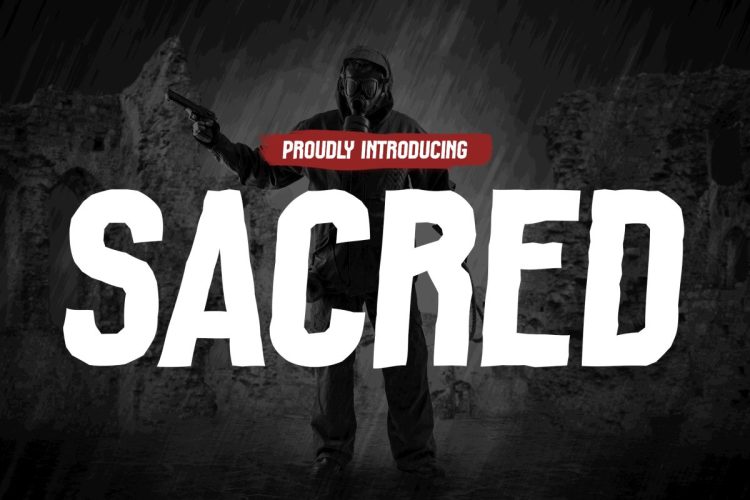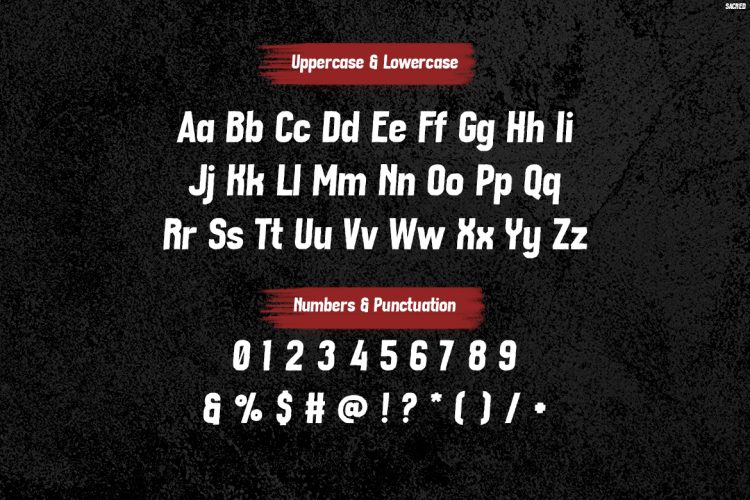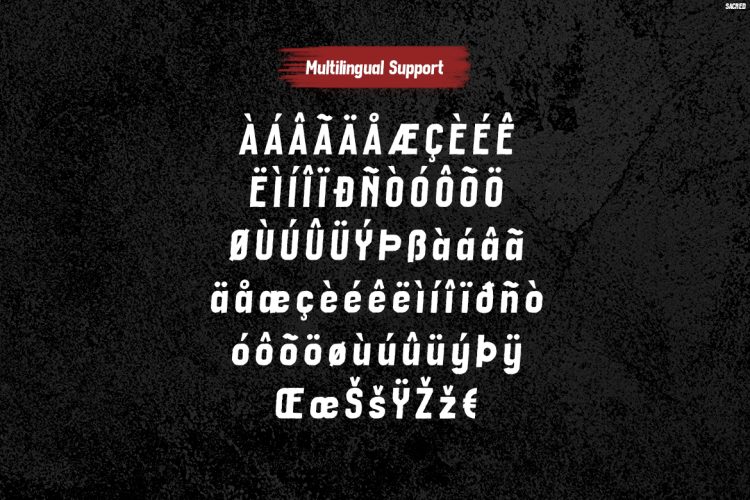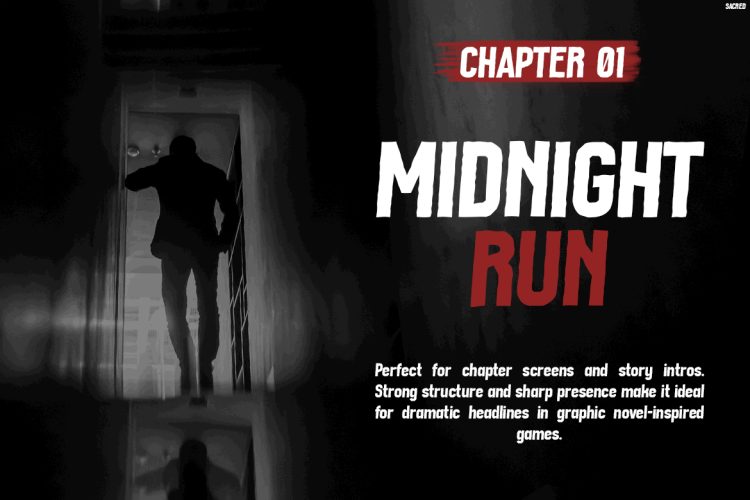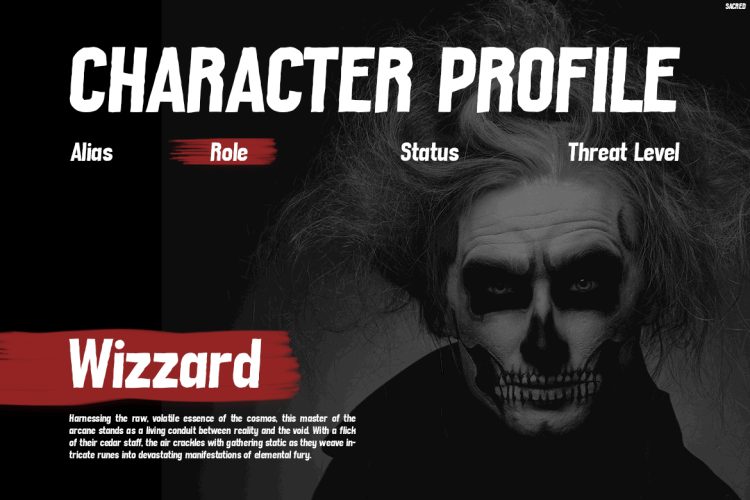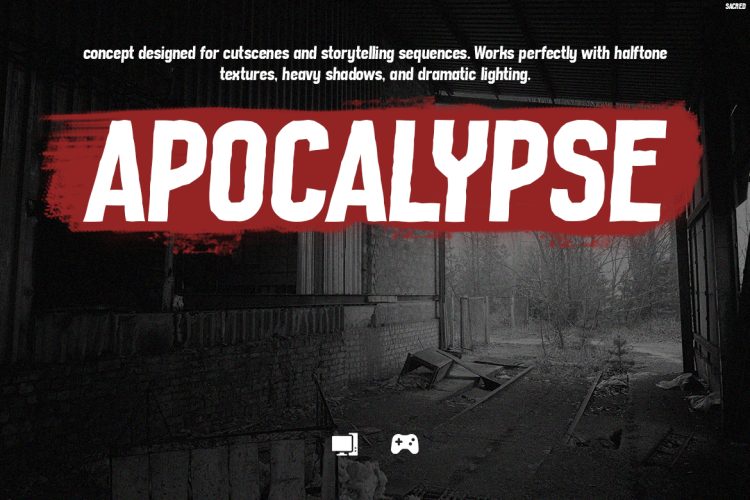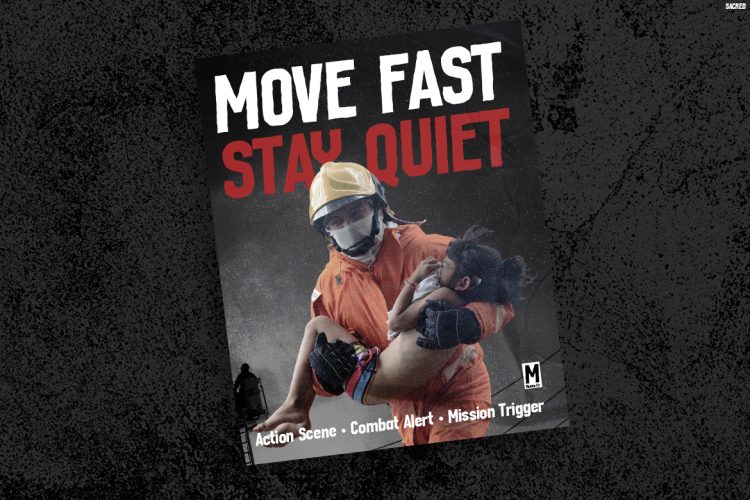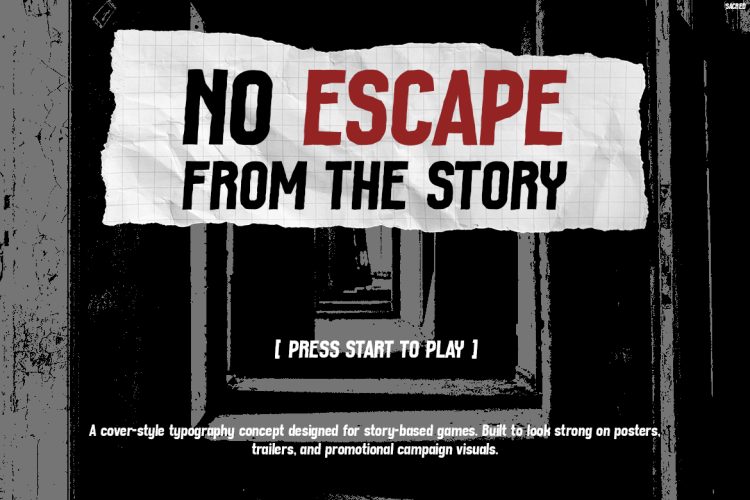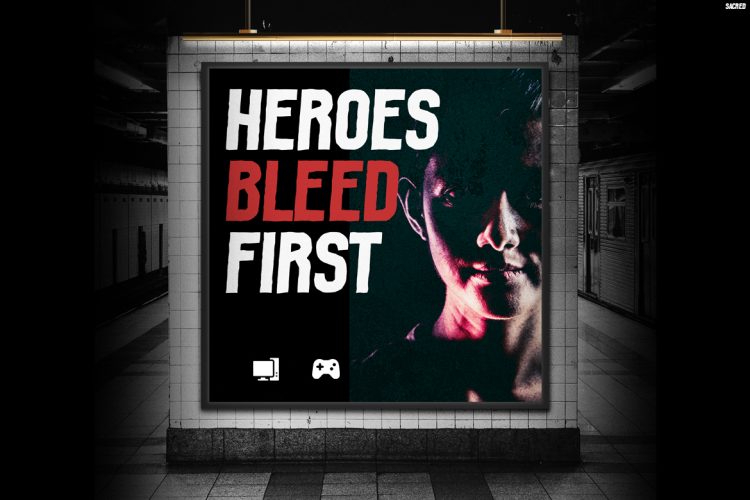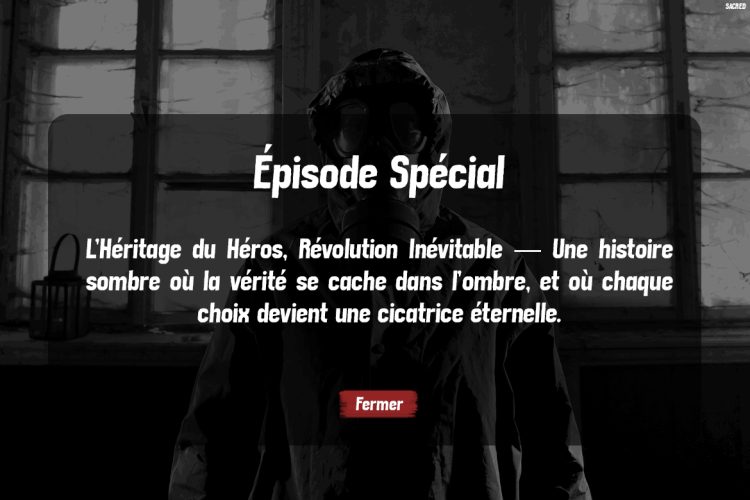
SACRED โ Dark Impact Gaming Display Font
Gaming Font SACRED brings a bold, gritty, and cinematic feel; therefore, it instantly grabs attention in dark-themed designs. Moreover, its rough textures, sharp edges, and distressed style create a powerful visual punch that feels intense and dramatic. As a result, every headline looks strong, fearless, and full of energy. In addition, the font keeps high readability even in heavy compositions, so it works perfectly for posters, covers, and digital content. Not only that, but with Multilingual Support (67 Languages), you can reach global audiences without losing impact.
Gaming Font SACRED helps creators express tension, action, and storytelling; consequently, it shines in gaming and cinematic visuals. For example, it boosts horror themes, action posters, and thriller content with a raw, immersive vibe. Furthermore, it adapts smoothly across branding, social media, and merchandise. At the same time, it keeps a strong personality that makes every design bold and unforgettable.
This font fits game developers, movie designers, and content creators; additionally, it supports esports branding and streaming visuals. Likewise, it works great for horror posters, action campaigns, YouTube thumbnails, and edgy streetwear designs. On top of that, creative agencies can use it to craft dramatic, high-impact visuals.